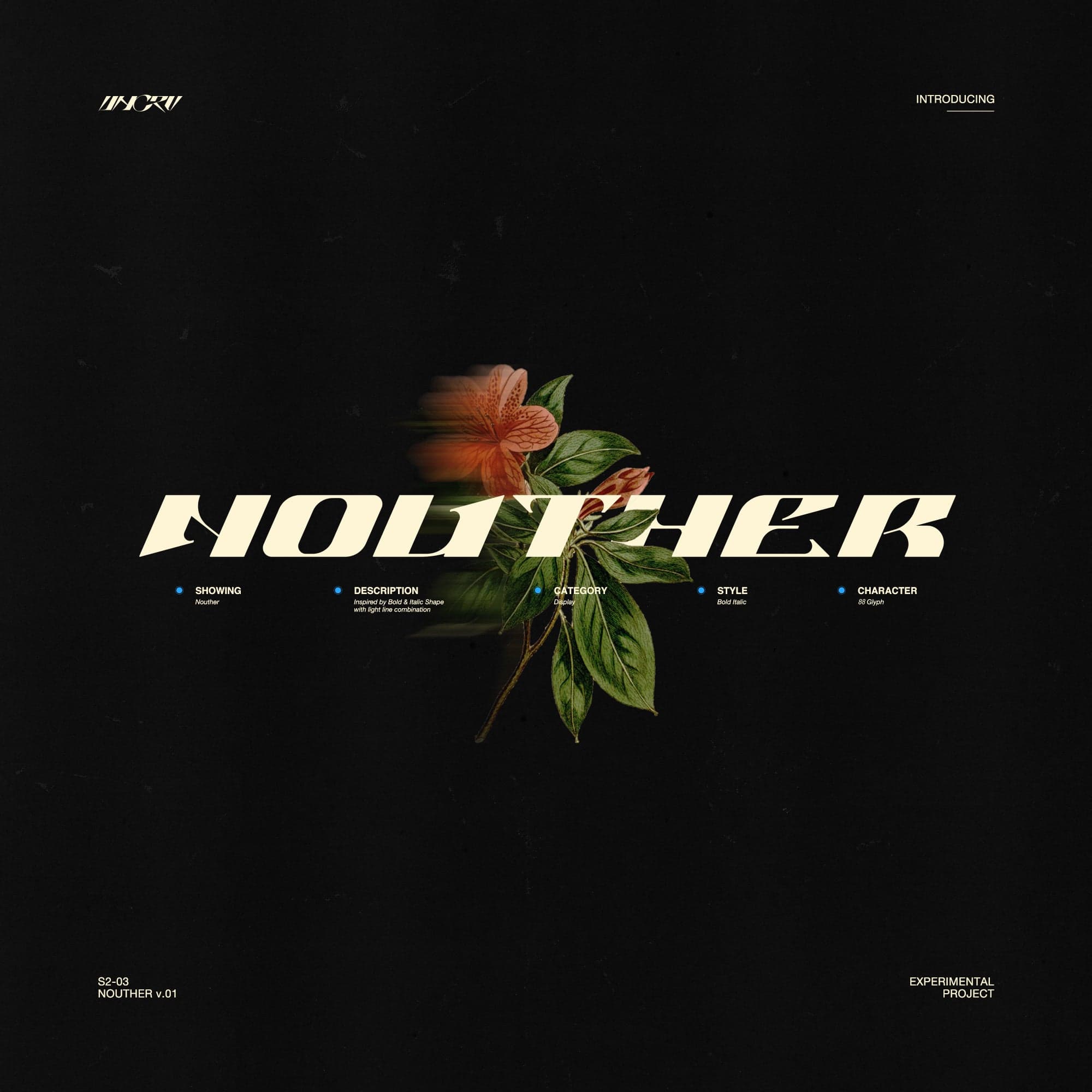
<p>Inspired by the modern bold theme with italic touch keeping the simplicity and unique shapes Great for use in your projects related to gaming, future tech, space travel, virtual reality & much more!</p>